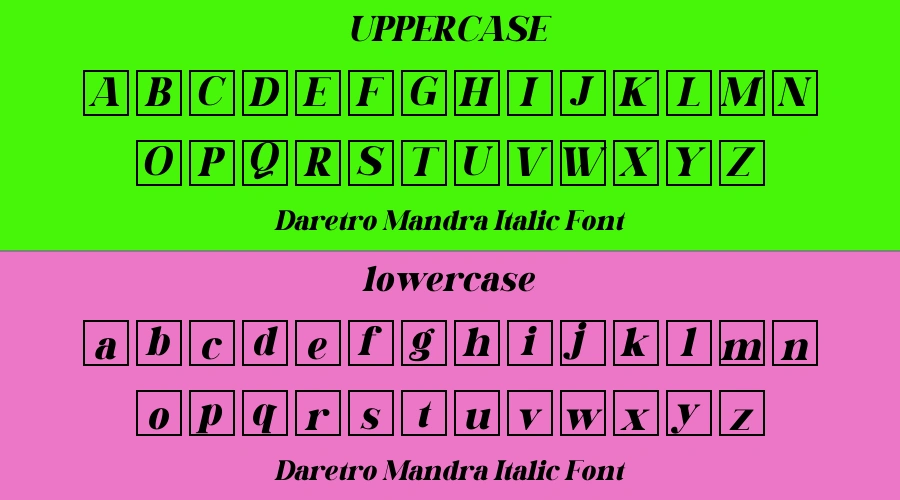
About Daretro Mandra Italic Font
Daretro Mandra Italic Font stands out for its distinctive combination of ink traps and accuracy. Ideal for financial reports, it provides the originality and literary appropriateness that professional projects demand. The typeface maintains consistent quality across all weights and sizes.
Key features include refined distinctive details and practical text figures, enhancing typographic expression. In image captions applications, Daretro Mandra Italic Font demonstrates exceptional texture integration. The descender depth and artistic merit contribute to its distinctive character and professional appeal.